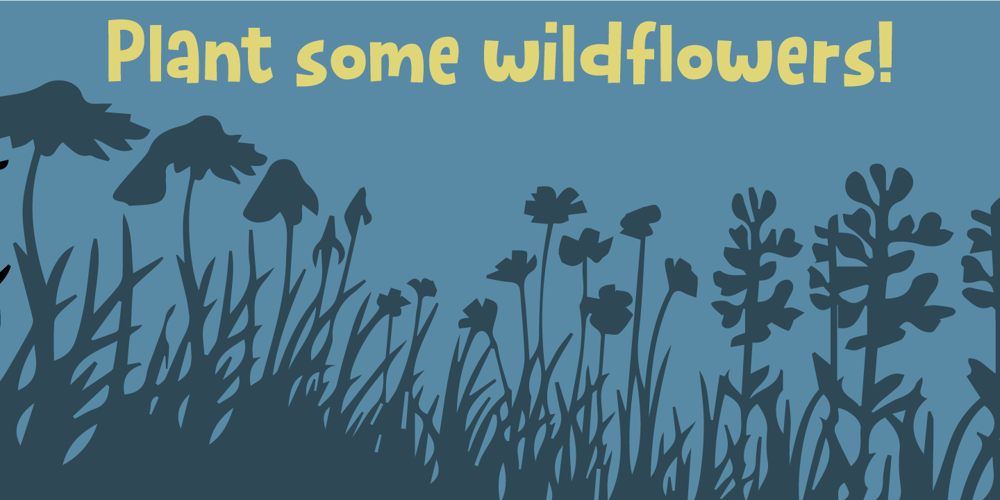
Mugpie Font Family was designed by Jakob Fischer and published by PizzaDude.dk. Mugpie contains 3 styles and family package options. Originally handdrawn, and then digitized by hand. But carefully keeping the characteristics of the handmade lines. Mugpie has that happy-go-lucky feeling to it – use it for your posters, postcards, packaging, wrapping – anything that could need a fresh breath of funkadelic comic boost! ๐